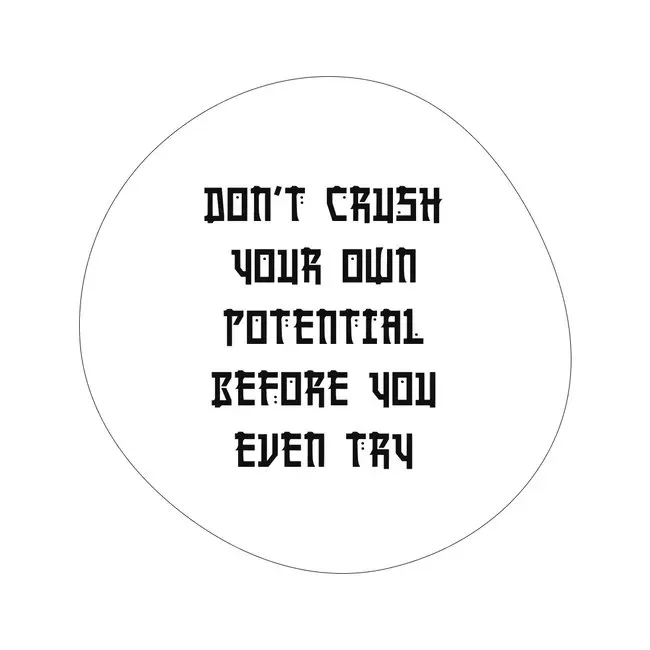
Manga fonts capture the energy and emotion of Japanese comics. With exaggerated strokes and dynamic shapes, they bring your designs to life, ideal for comic books, graphic novels, or any project that needs a punch of personality.
Designer: Various (e.g., Alisa Voloshina for Manga Style Pro)
Released: Manga Style Pro was released in 2023 by AVFontoria
Style: Bold, expressive sans-serif with dynamic strokes
Includes Regular, Italic, Bold, and Bold Italic styles
Designed for high legibility in comic panels
Supports multiple languages and special characters
Use the Font for dialogue, sound effects, and titles. Pair it with a simple sans-serif like Arial or Helvetica for body text to maintain readability.